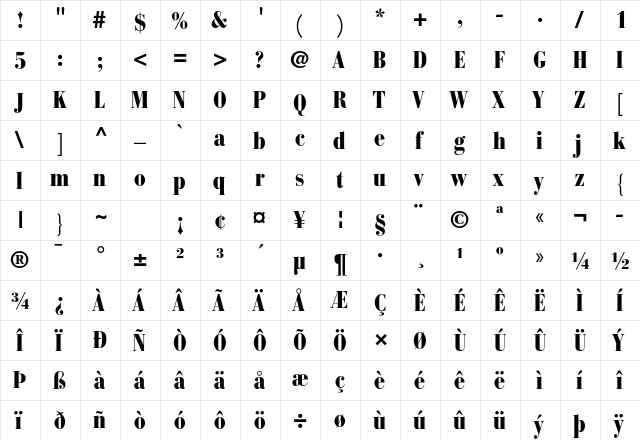
Bauer Bodoni Std 2 Black Condensed
| Designer | Heinrich Jost, Louis Hڬl |
Design Context for Bauer Bodoni Std 2 Typeface
Bauer Bodoni Std 2 takes a measured approach to typography — its balanced proportions and neutral character make it a reliable workhorse for both digital and print work. Its narrow stance lets it pack a punch even in space-constrained designs.